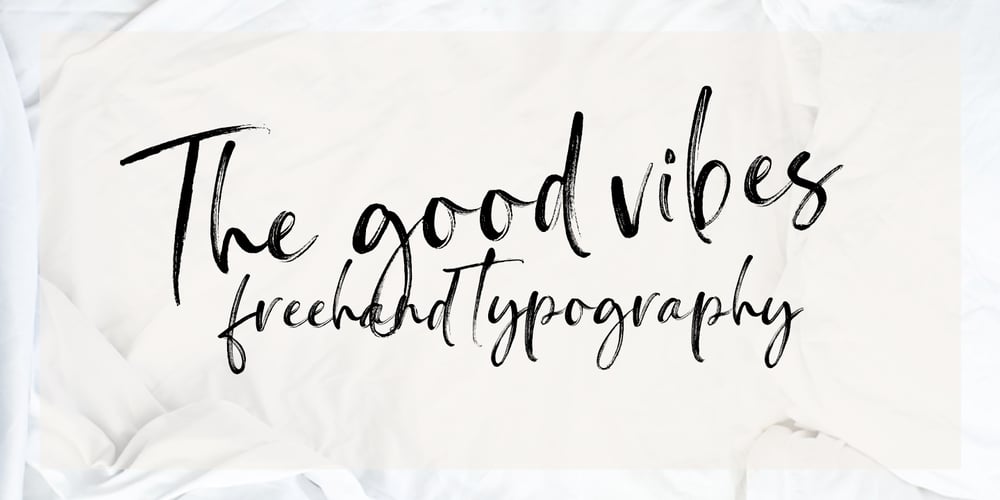
Greatlove Font Family was designed by Alam Syahril and published by Realtype. Greatlove contains 1 styles and family package options. Greatlove is a brush script written in natural brushes. Written in quick motion using a rather dry brush pen, looks beautiful and is perfect for designs like, magazines, logos, product packaging, quotes, posters, merchandise, social media greeting cards and more.